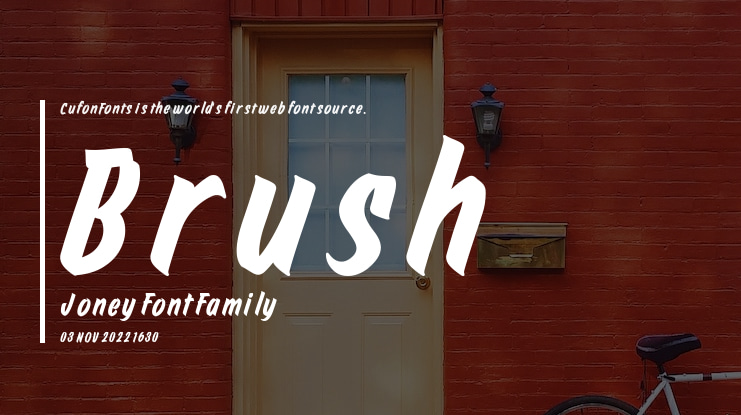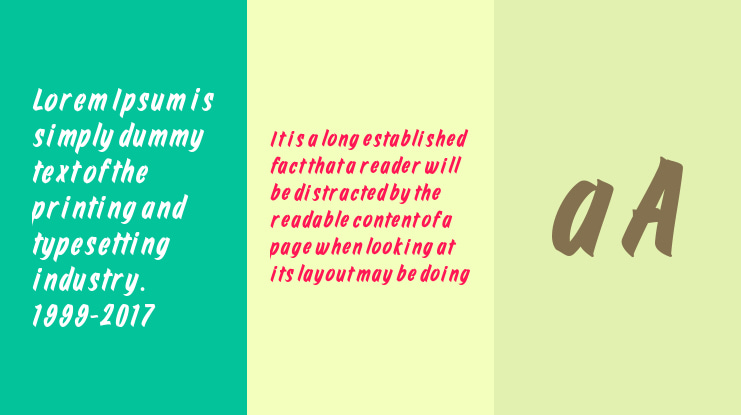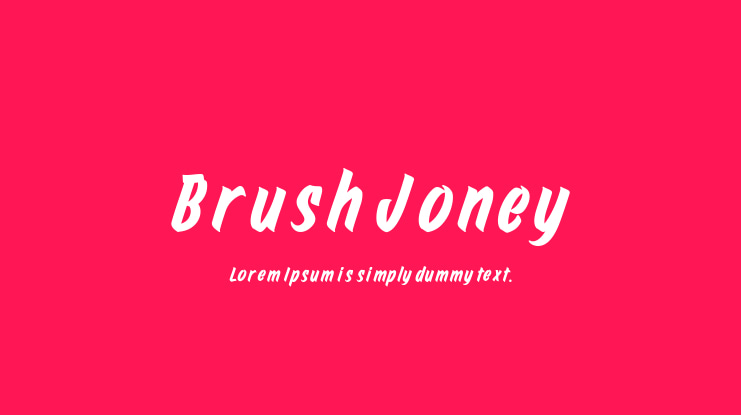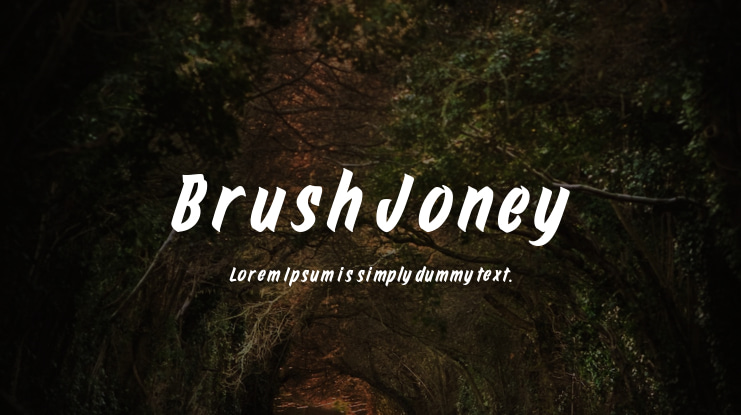
Brush Joney Font
Brush Joney Font is a meticulously crafted typeface that brings the timeless allure of vintage brush lettering into the digital age. Inspired by classic sign art and traditional handwritten brush strokes, this font offers a perfect balance of boldness and fluidity, making it ideal for a wide range of creative projects. Whether you're working on branding, logos, packaging, posters, or social media graphics, Brush Joney gives your designs an authentic, hand-drawn feel with its rich collection of features.